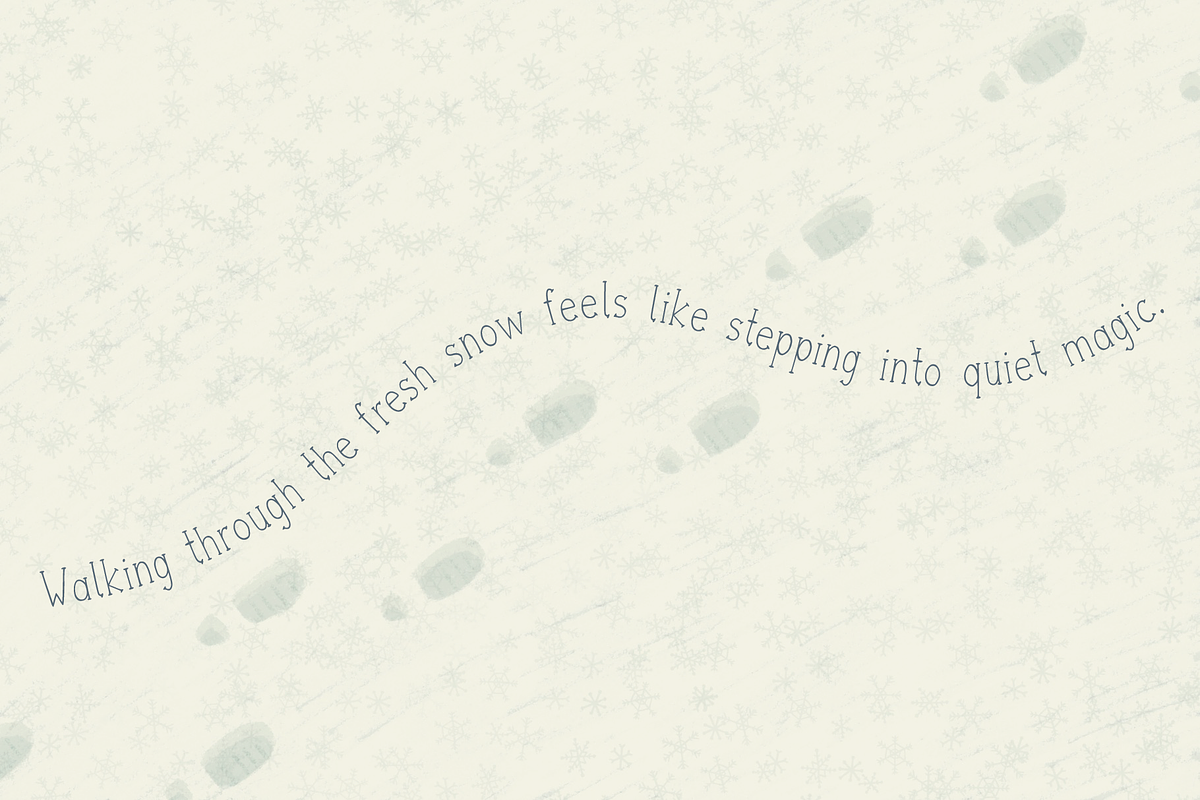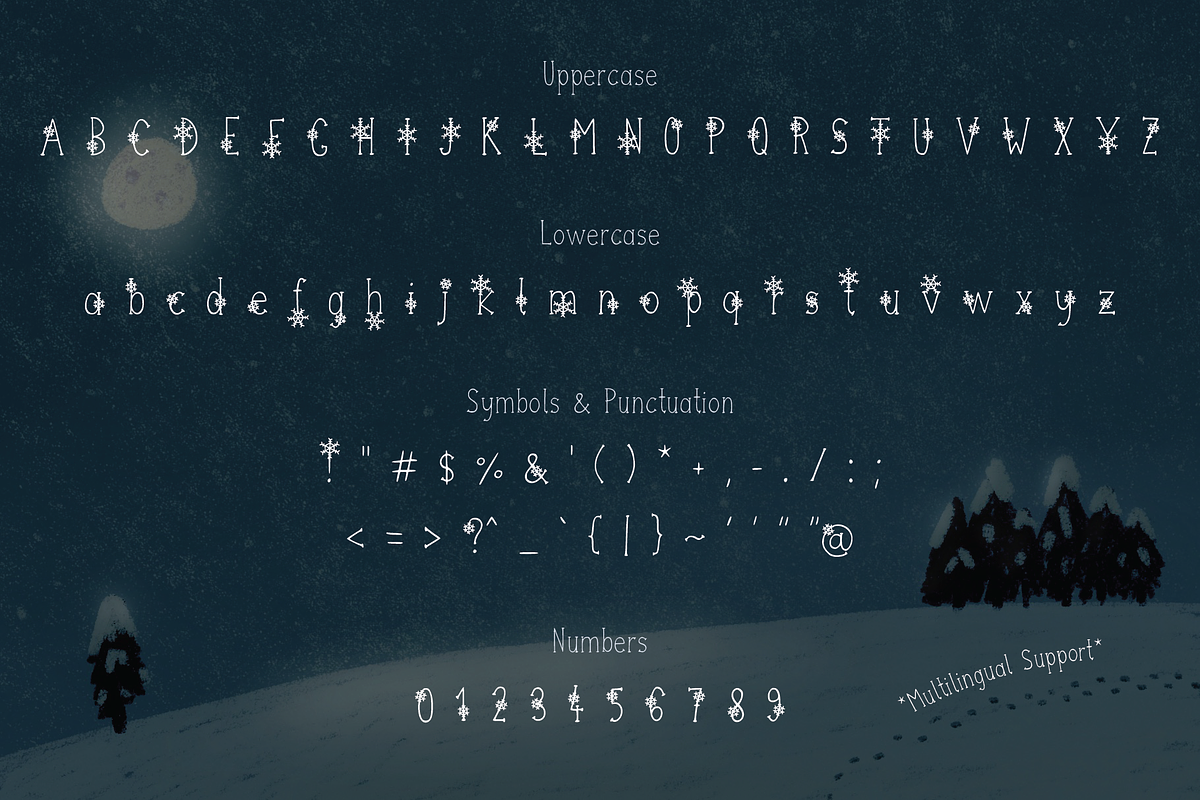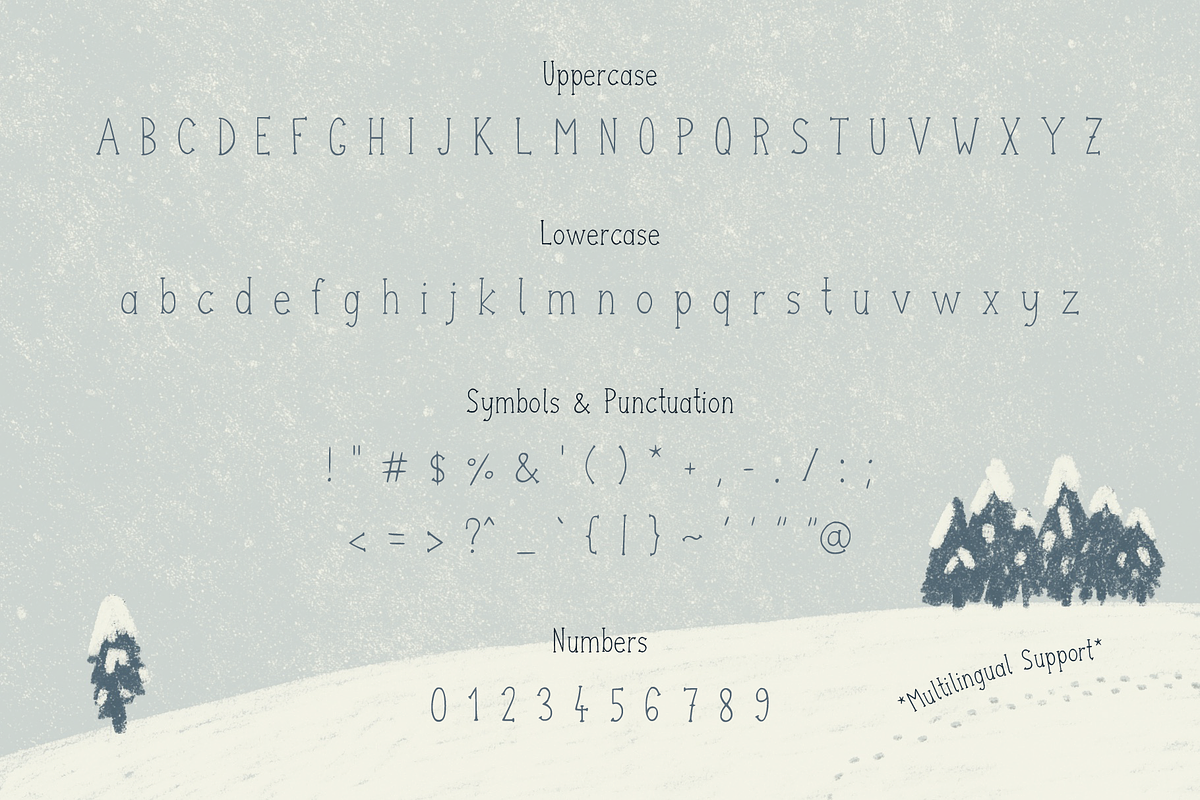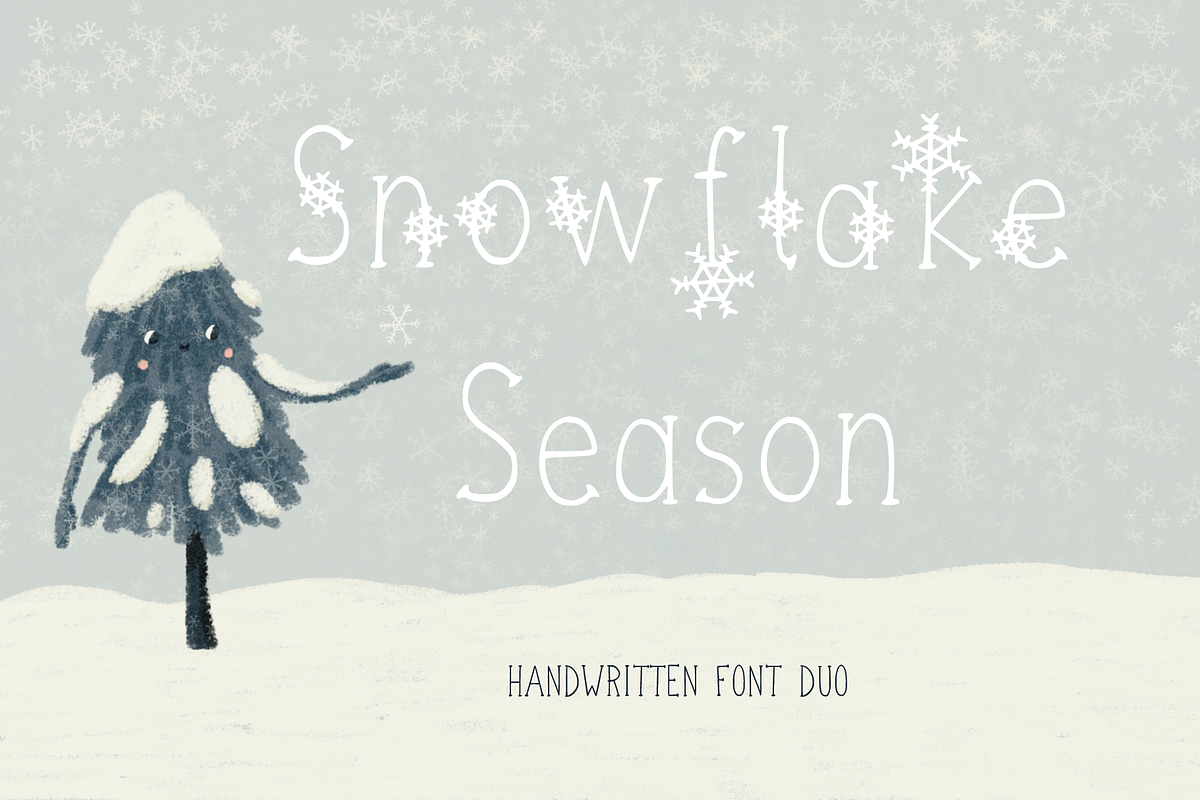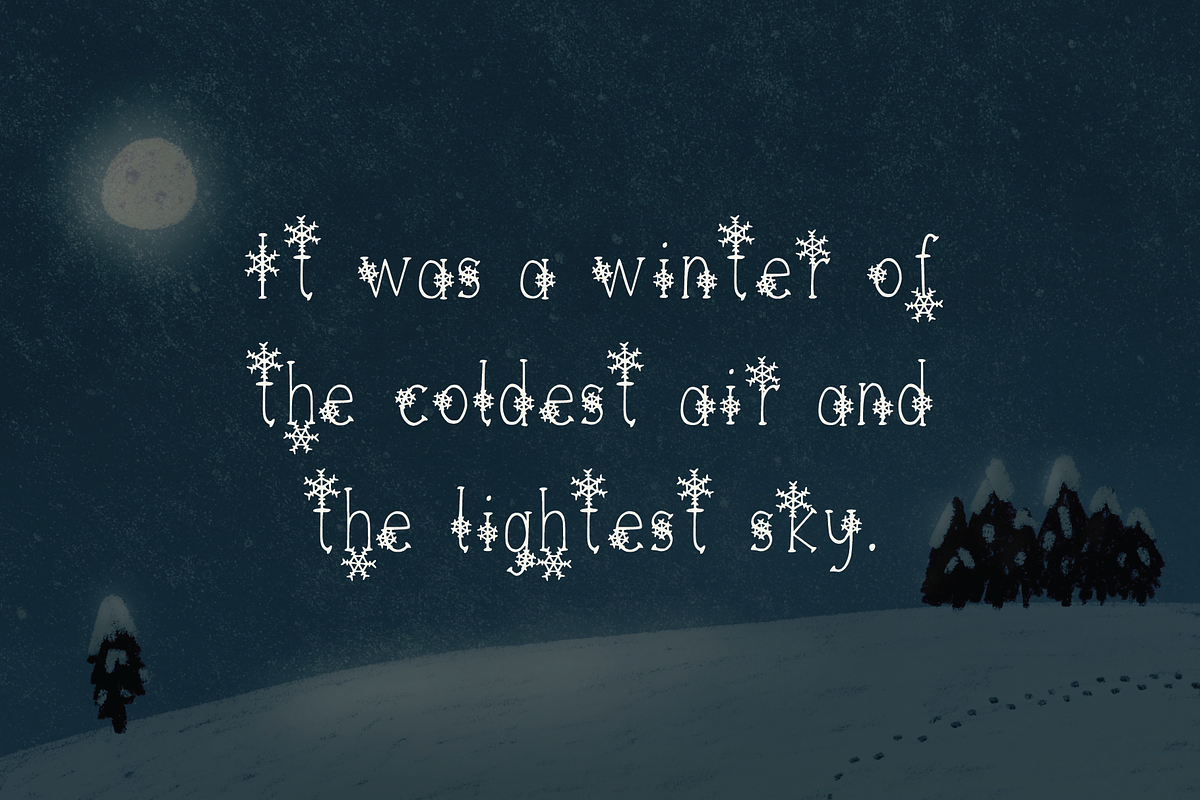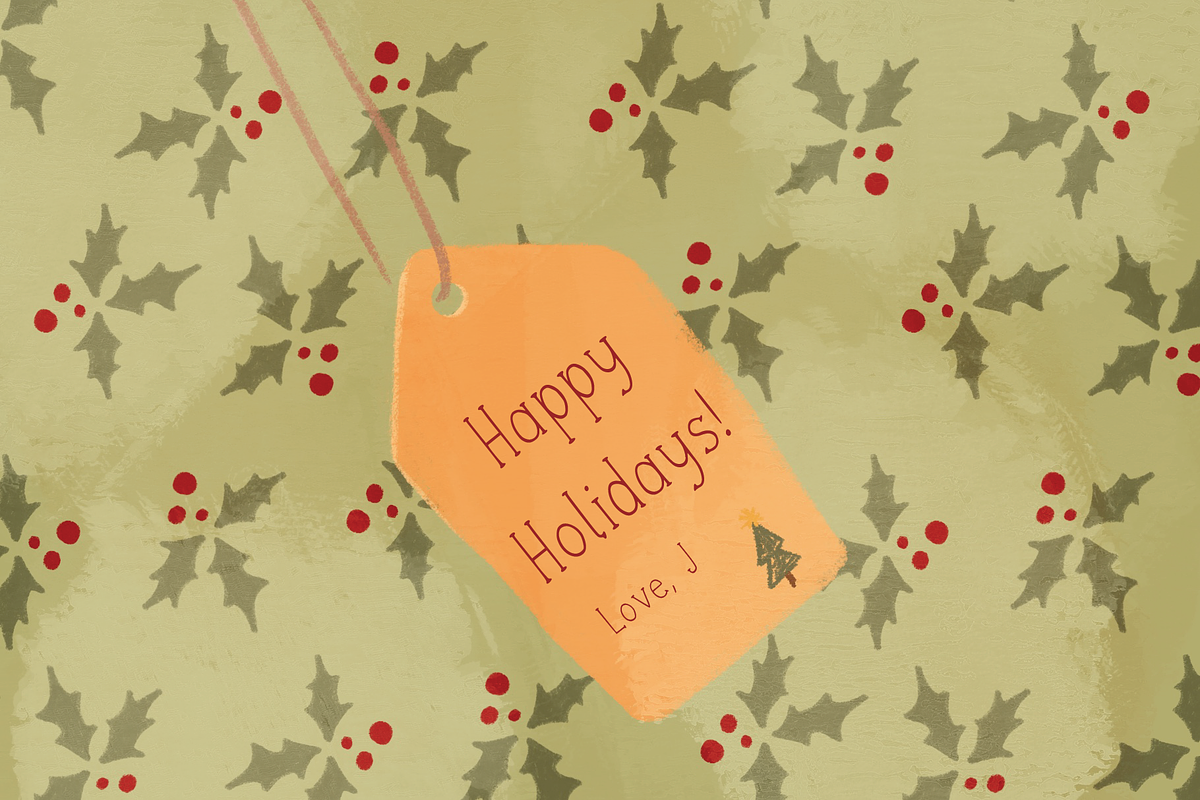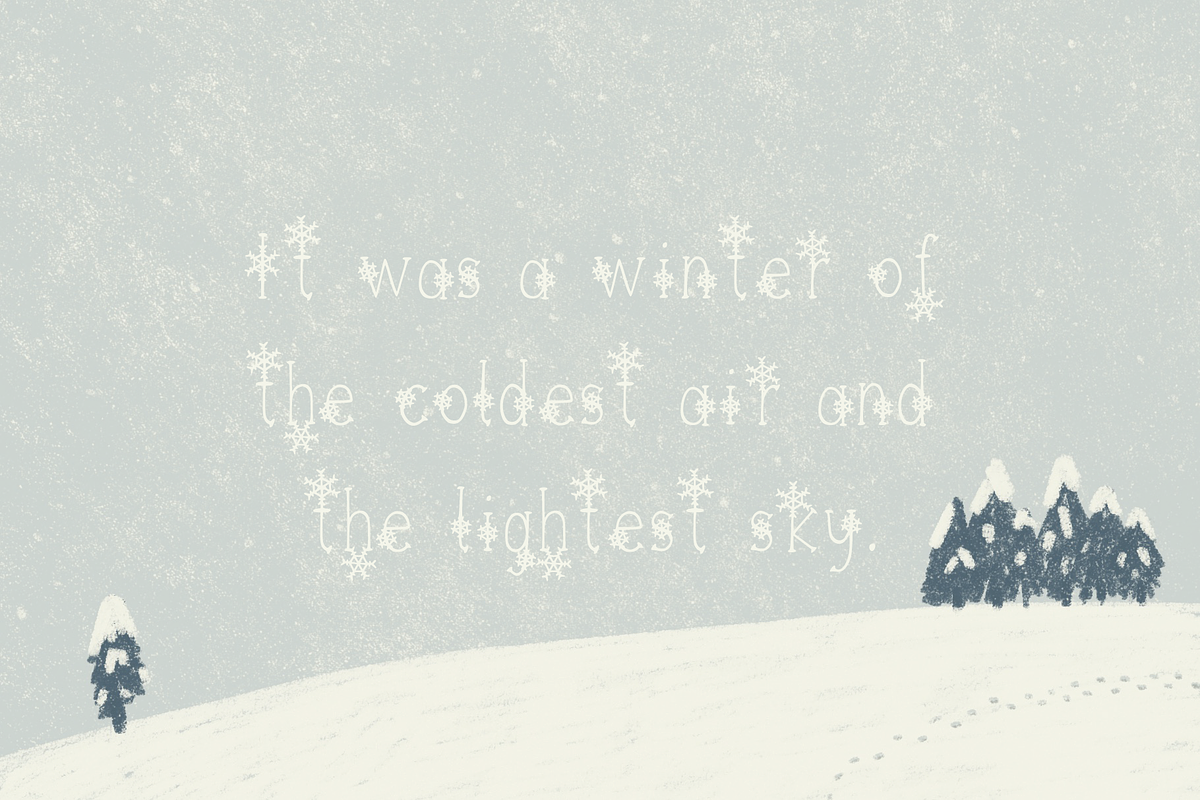
Snowflake Season
Snowflake Season is a whimsical, hand-drawn serif typeface inspired by cozy winter nights, swirling snowflakes, and all things festive. With its thin lines, gentle curves, and lightly imperfect strokes, it brings a warm, handmade charm to holiday cards, seasonal branding, gift tags, craft projects, social posts, and winter-themed illustrations.
This bundle includes two fonts:
• Snowflake Season – the clean handwritten serif version, perfect for elegant winter stationery, minimalist holiday designs, and soft, storybook-style layouts.
• Snowflake Season With Snowflakes – the same hand-drawn serif letters, but accented with delicate illustrated snowflakes for an extra dose of festive magic. Ideal for bold holiday headlines, greeting cards, ornaments, stickers, and decorative typographic art.
Snowflake Season supports a wide range of languages, including English, French, Spanish, Portuguese, German, Italian, Swedish, Norwegian, Danish, Finnish, Icelandic, Polish, Czech, Slovak, Hungarian, Turkish, Estonian, Latvian, Lithuanian, Romanian, Albanian, Croatian, Bosnian, Slovenian, Serbian (Latin script), Irish, and Swahili. Feel free to test the font above to make sure it fits your project.